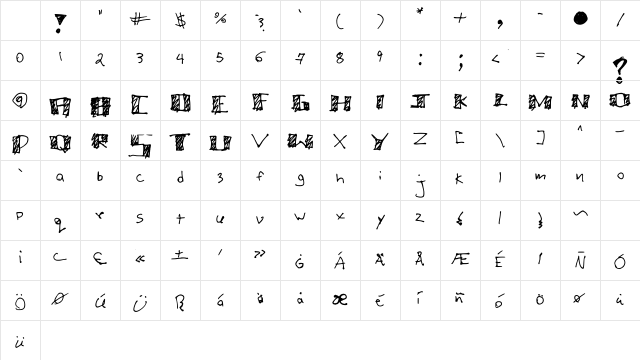
MegaCherry V1 Medium Free Font
MegaCherry V1 Medium
Design Context for MegaCherry V1
MegaCherry V1 is a composed and adaptable typeface that performs quietly and consistently across a wide range of design contexts.